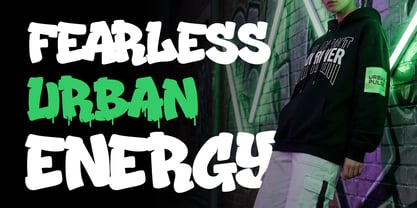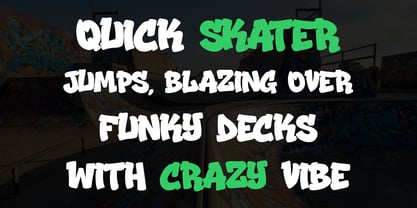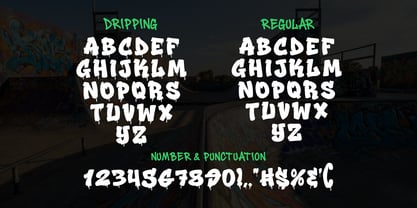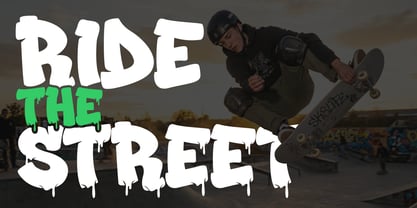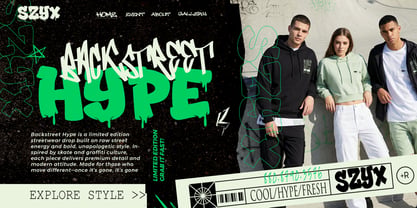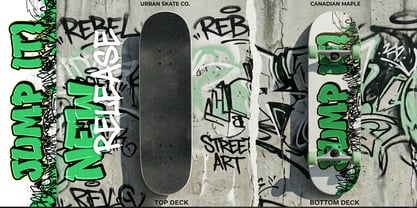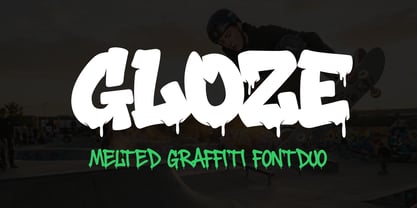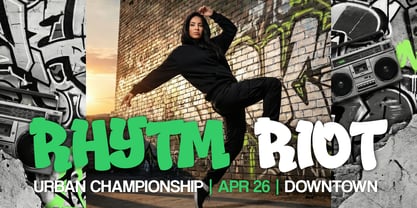
Gloze
by Sipanji21
The Gloze Font Family was designed by Sipanji and published by Sipanji21. Gloze contains 2 styles and family package options. More about this family
Gloze is an expressive graffiti font that captures the raw, melting energy of urban street culture. Inspired by authentic spray paint lettering, dripping ink effects, and underground tagging aesthetics, this typeface brings a bold and rebellious personality into any design. Every curve, splash, and drip is carefully crafted to mimic the natural flow of real graffiti, making it feel organic, spontaneous, and full of attitude. This font is designed for creators who want to break the rules and stand out. Gloze delivers a strong visual impact with its melted letterforms, giving the impression of paint sliding down a wall, fresh and alive. The irregular shapes and fluid strokes create a dynamic rhythm, making each word feel like a piece of street art rather than just typography. Gloze comes with two main styles that enhance its versatility. The regular style offers a solid graffiti structure, perfect for bold headlines and clear readability. Meanwhile, the melted or drip style adds extra character with flowing paint effects, making it ideal for designs that require a more aggressive, edgy, and artistic look. These styles can be combined to create layered compositions, giving designers full creative freedom. The font includes a complete set of uppercase and lowercase characters, allowing for flexible text compositions. Its multilingual support ensures compatibility with a wide range of languages, making it suitable for global projects. In addition, Gloze provides numbers and punctuation that match the overall graffiti style, ensuring consistency across all elements of your design. Gloze is perfect for a wide variety of creative applications. It works exceptionally well for streetwear branding, urban merchandise, posters, music covers, album artwork, YouTube thumbnails, social media graphics, and graffiti-inspired logos. Whether you are designing for hip-hop culture, skate brands, or underground events, this font delivers the authentic street vibe that modern audiences love. The organic imperfections in Gloze are what make it unique. Unlike clean and geometric fonts, this typeface embraces asymmetry, uneven edges, and natural flow. These characteristics give it a handcrafted feel, as if each letter was painted directly onto a wall. This authenticity makes Gloze highly appealing for designers who want to add personality and depth to their work. From a technical perspective, Gloze is optimized for both print and digital use. The font maintains clarity even at large sizes, making it ideal for headlines and display purposes. When used in digital environments such as websites or social media, it retains its bold presence and visual impact. Another advantage of Gloze is its adaptability. It can be used as the main focal point of a design or as a complementary element alongside other font. Pairing it with clean sans-serif or minimalist typefaces creates a strong contrast that enhances readability while maintaining an urban edge. This font is not just a design tool—it is a statement. Gloze represents creativity without limits, inspired by the freedom of street artists who turn blank walls into powerful visual expressions. By using this font, designers can channel that same energy into their work, creating designs that feel alive, bold, and unforgettable. If you are looking for a graffiti font that combines authenticity, versatility, and strong visual identity, Gloze is the perfect choice. It is built to help your designs stand out in a crowded visual landscape, delivering a unique style that resonates with modern urban culture.